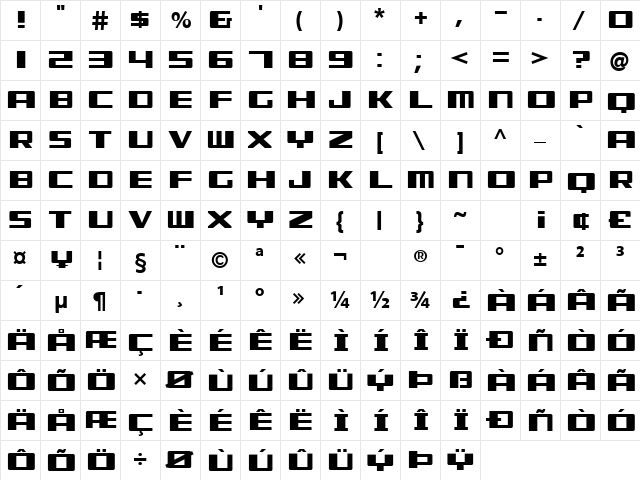
Misuse Display
| Style | Display |
| Foundry | Archetype |
Misuse brings ornamental detail and strong personality to headlines and identities, where visual impact matters more than quiet functionality.
Font Pairing: Pair with a clean neutral sans-serif for body copy to let Misuse's character lead without overwhelming the composition.
Pro Tip: Use Misuse exclusively at display sizes — it was designed to be seen, not read at length. Let a neutral companion handle body copy.